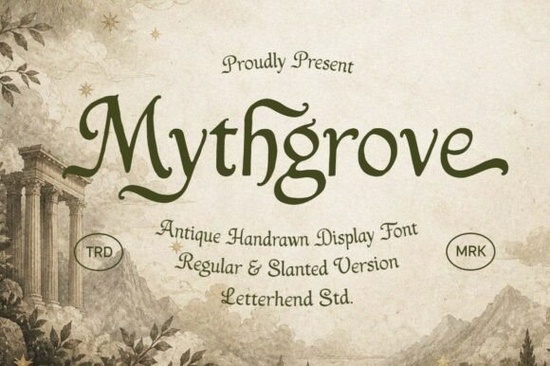
Mythgrove Font is a unique typeface that brings a sense of ancient storytelling to modern design. With its blend of antique hand-drawn shapes and soft fantasy curves, it adds a touch of gothic vintage charm to any project. Whether you're creating logos, branding materials, or illustrations, this font offers a magical medieval feel that still remains readable and playful.
If you're looking for a font that can bring a sense of mystery and adventure to your work, Mythgrove Font could be the perfect choice. It’s especially well-suited for designers who want to add a whimsical yet professional look to their designs. The font’s versatility makes it ideal for everything from book covers to social media graphics.
When working with Mythgrove Font, consider how it fits into your overall design aesthetic. Its soft curves and intricate details make it great for headings and titles, while its readability ensures it works well in body text as well. This balance between style and function is what makes it stand out among other display fonts.
One of the key strengths of Mythgrove Font is its ability to evoke a sense of nostalgia without feeling outdated. The font’s design elements draw inspiration from old manuscripts and medieval calligraphy, giving it a timeless quality. At the same time, its modern digital format ensures it’s easy to use across different platforms and projects.
How to Use Mythgrove Font in Different Projects
Mythgrove Font can be used in a variety of creative applications. For example, if you're designing a website or app interface, it can serve as a striking heading font that captures attention. In print, it works well for invitations, posters, and packaging designs where a touch of elegance is needed.
For small businesses and print-on-demand sellers, this font can help create eye-catching product labels, banners, and promotional materials. Its unique style can set your brand apart and give your designs a more personalized, handcrafted feel.
Designers and crafters may find that Mythgrove Font pairs well with other fonts that have a similar aesthetic. Try combining it with something like Doodle Playground Font for a more playful look, or use it alongside a clean sans-serif font for contrast and balance.
Whether you're working on a personal project or a professional design, choosing the right font can make a big difference. Mythgrove Font offers a unique blend of historical inspiration and modern usability, making it a valuable addition to any designer’s toolkit.
Tip: Test the Font in Different Sizes and Contexts
Before finalizing your design, try using Mythgrove Font in different sizes and layouts. This will help you see how it looks in various situations and ensure it meets your design goals. You may also want to test it against other fonts to see how it compares in terms of readability and visual impact.
Remember, the goal is to create a design that not only looks good but also communicates your message clearly. Mythgrove Font can help achieve that balance with its thoughtful design and versatile application.
Consider adding Mythgrove Font to your collection of gothic and fantasy-inspired typefaces. It’s a great choice for anyone looking to add a touch of magic and mystery to their work.